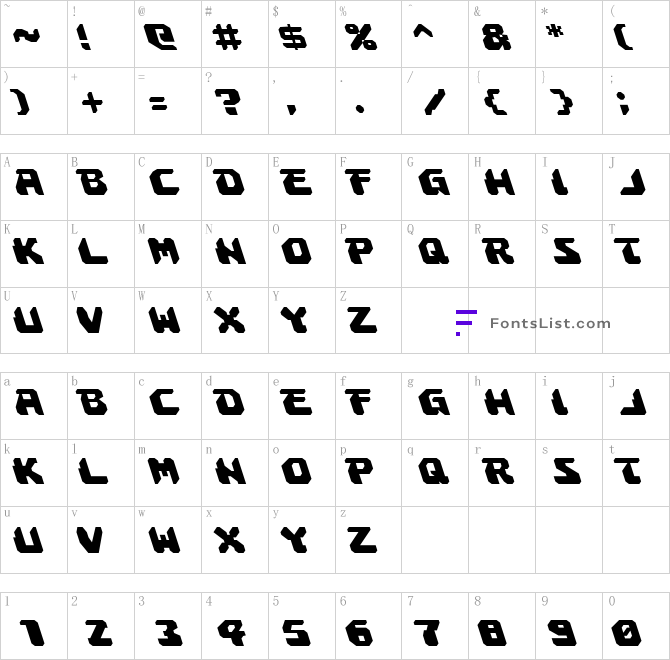
• Font Name:Astropolis Leftalic
• Subfamily:Italic
• Subfamily:Astropolis Leftalic: 2009
• Full Name:Astropolis Leftalic
• PostScript:AstropolisLeftalic
Astropolis-Leftalic.ttf is a very beautiful artistic font, Astropolis-Leftalic.ttf is widely used in the design and printing of various books and pictures,Astropolis-Leftalic.ttf has a strong visual impact,Astropolis-Leftalic.ttf is a commonly used font in newspapers, magazines and books, and is used in posters, e-commerce Poster design, store design, logo design, font design and other fields.Astropolis-Leftalic.